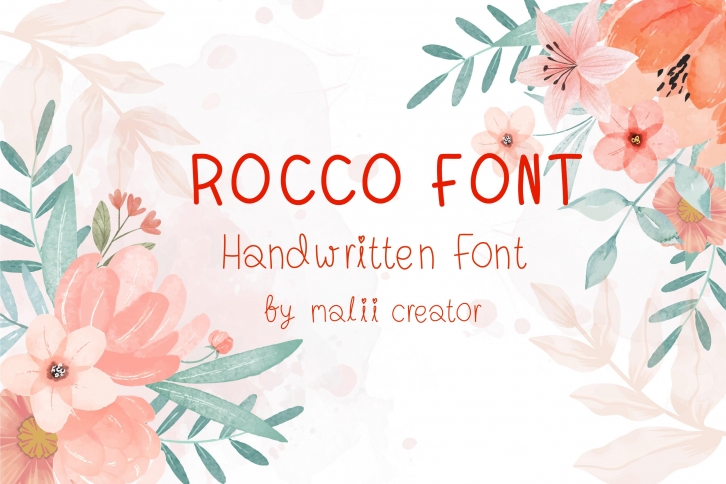
Rocco is a cute, simple and friendly handwritten font. This sweet and friendly look will appeal to a wide range of crafty ideas, from letterheads and titles, to stationery.